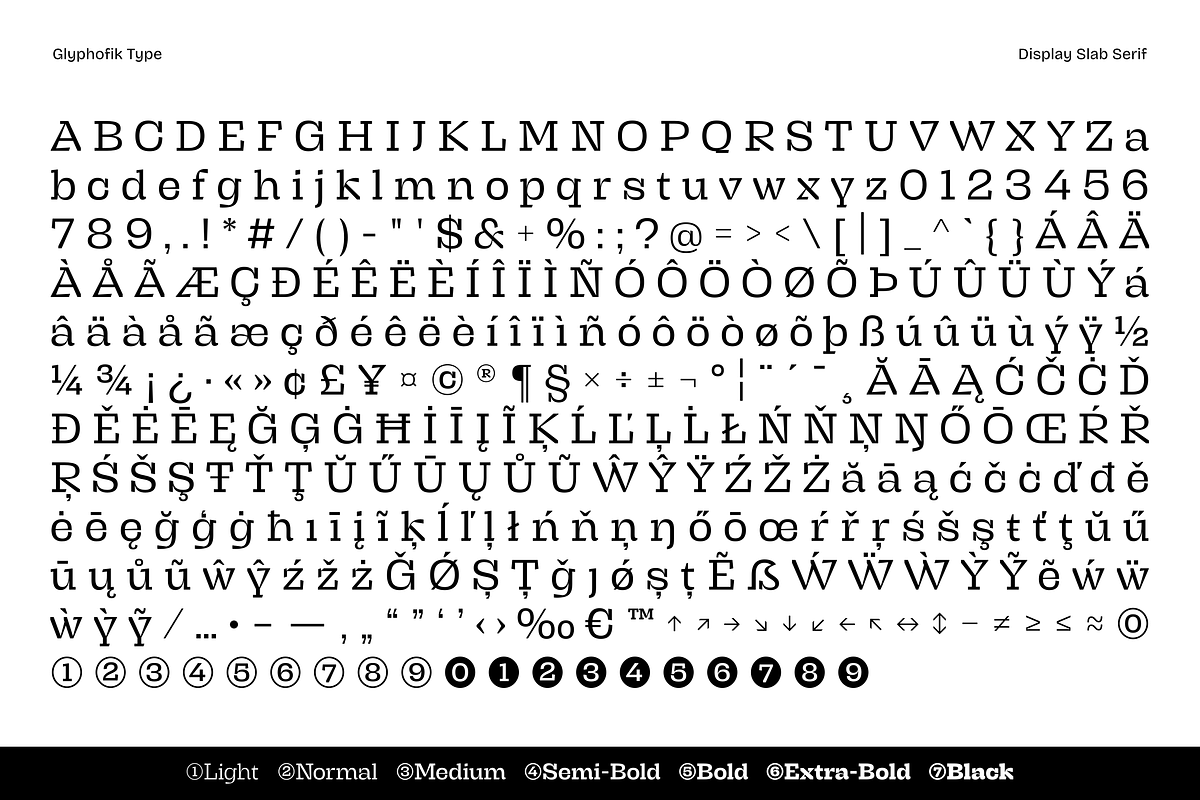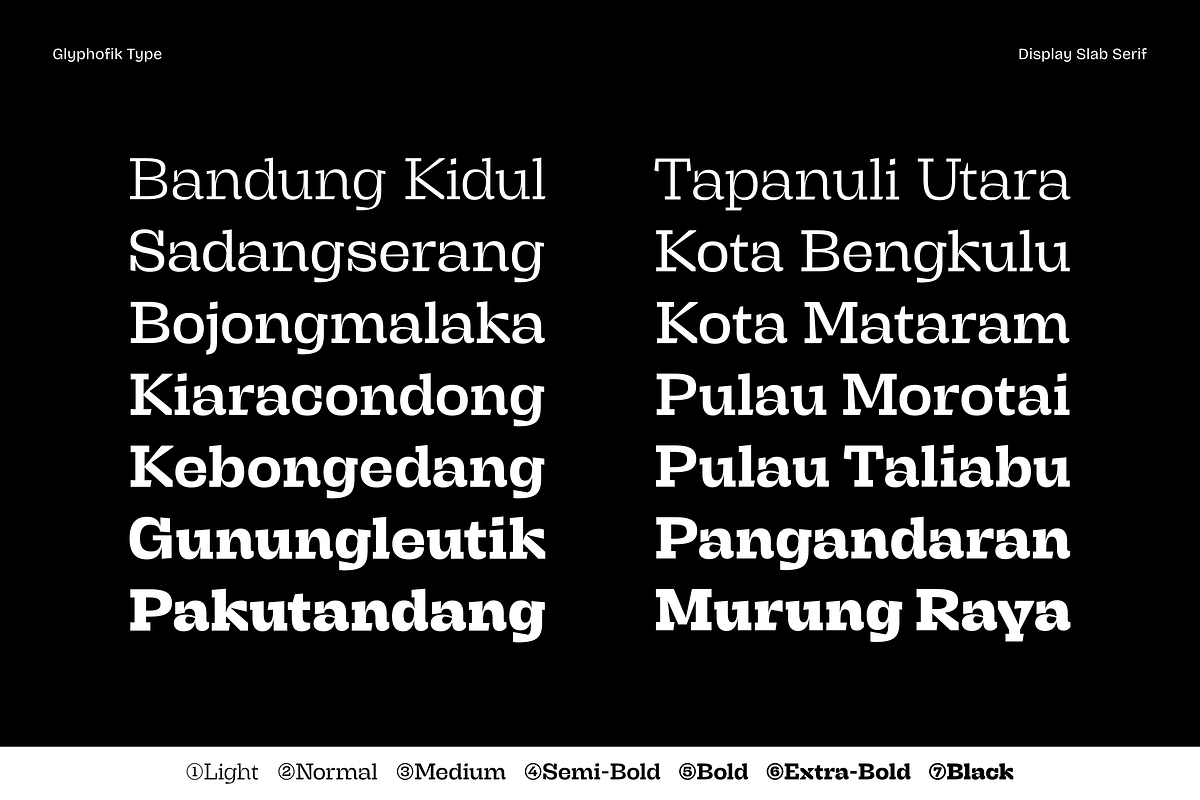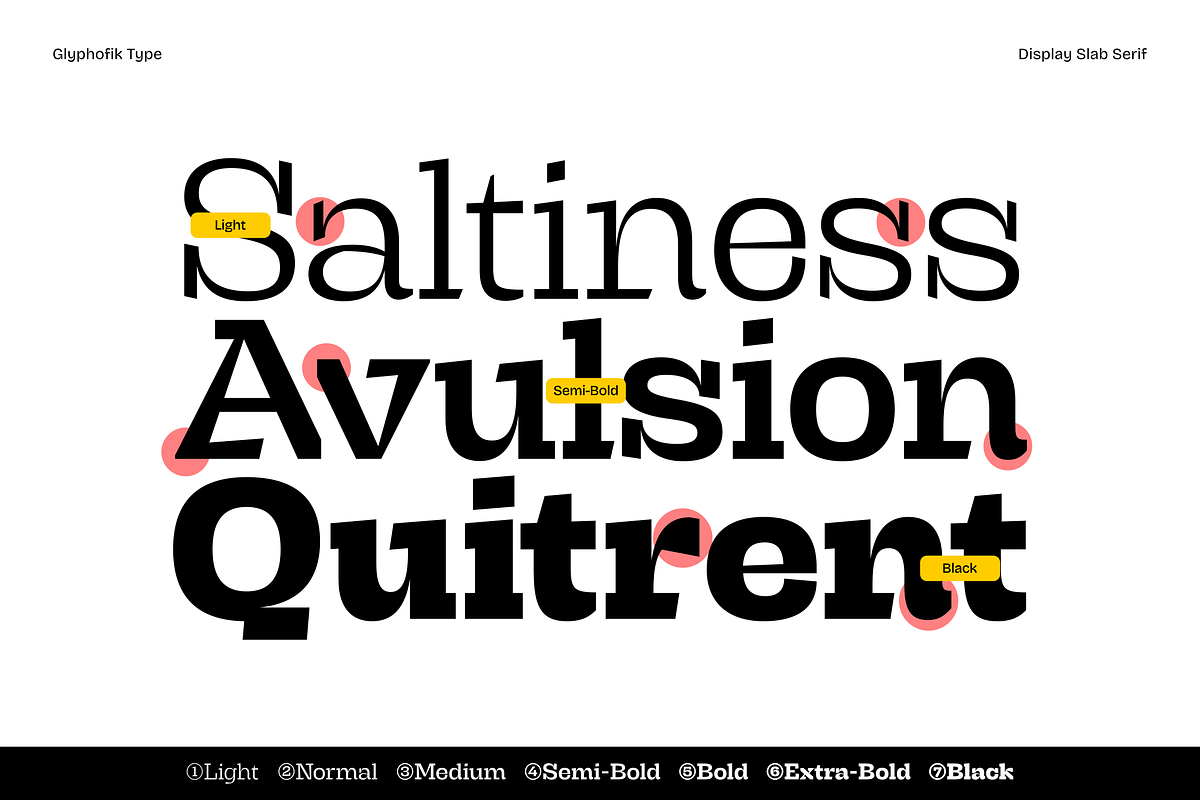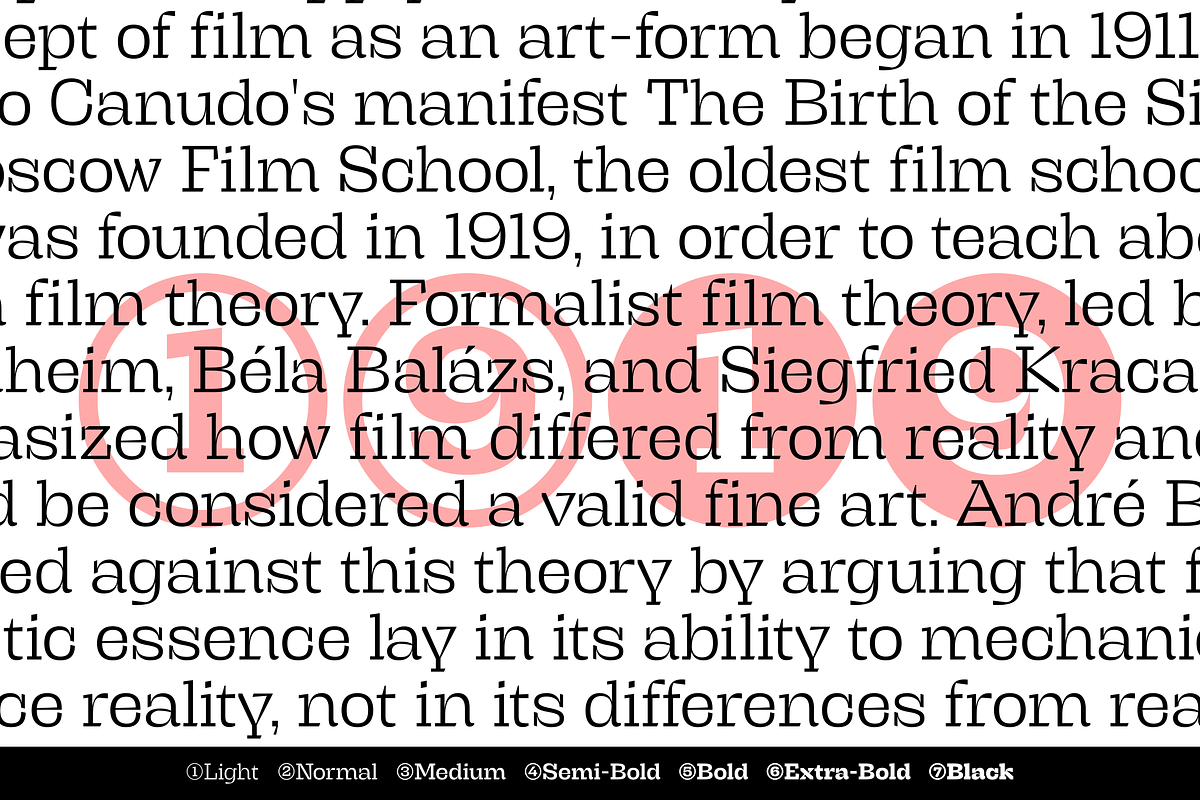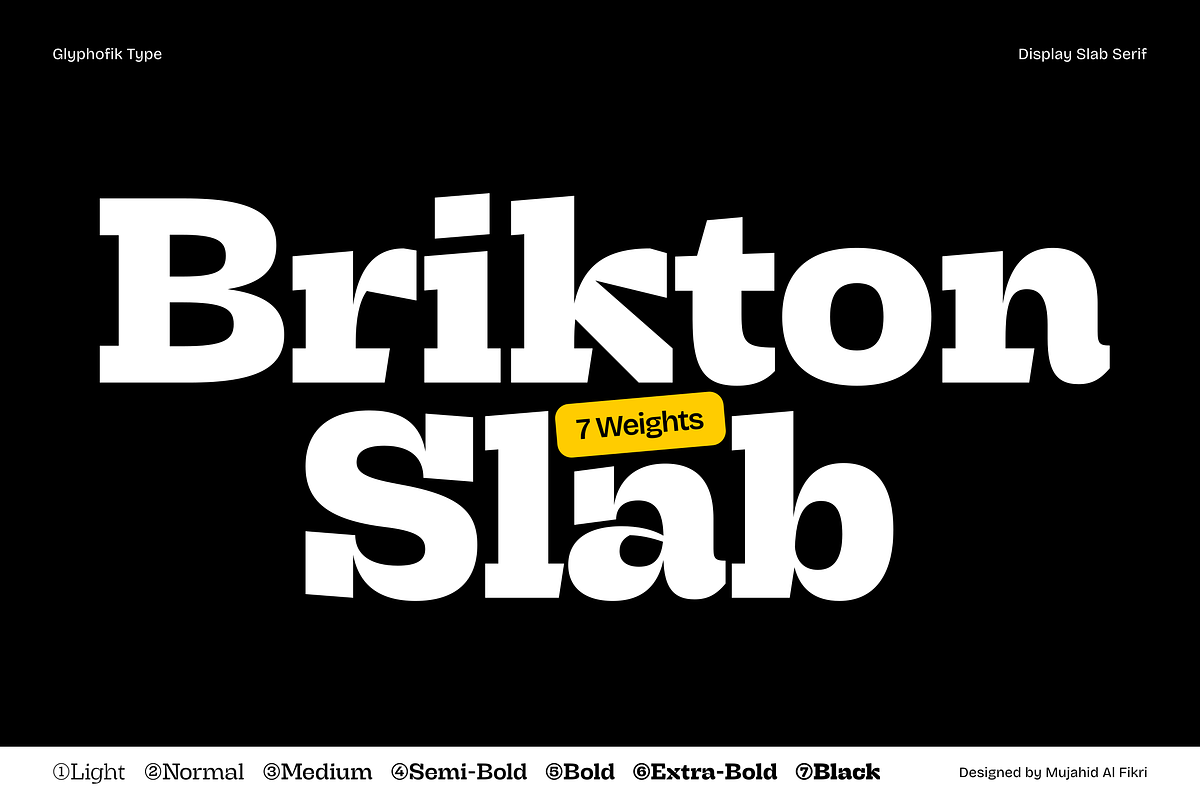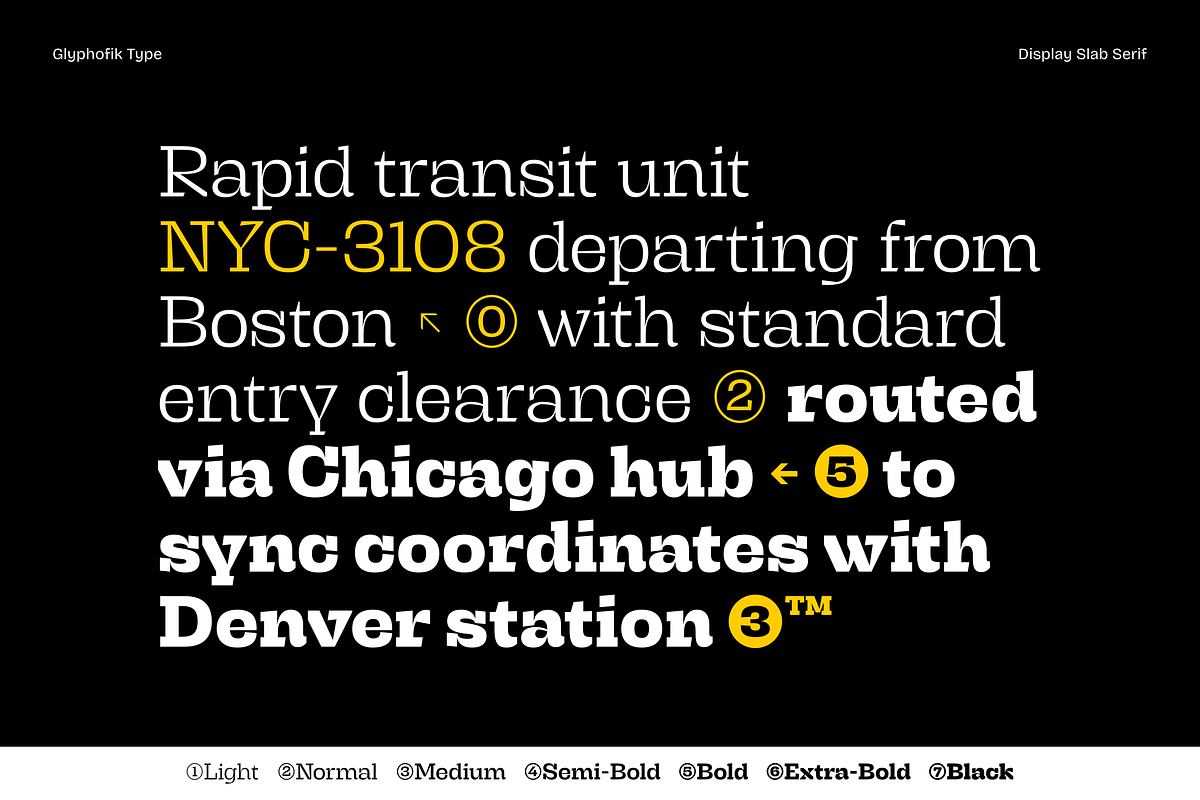
Brikton - Unique Slab Serif
Brikton is a Slab serif typeface with a combination of bold and slightly playful characteristics. Glyphs like d, h, m, and n don't end with a serif like most slab typefaces, but follow the tail of the letter a, creating a playful characteristic. Furthermore, the left inner serif (for example, on the letter n) is extended and cut at an angle to compensate for the space within the letter, preventing it from appearing empty. Diagonal glyphs like A, K, R, V, W, X, Y, k, v, w, x, and y don't have serifs but follow the sans serif form, with the ends cut off and an inner serif added on one side. Brikton's character is ideal for designs that emphasize text as the main element, such as displays, titles, and even logos.